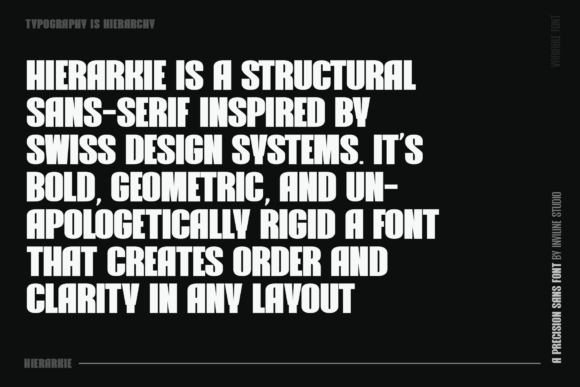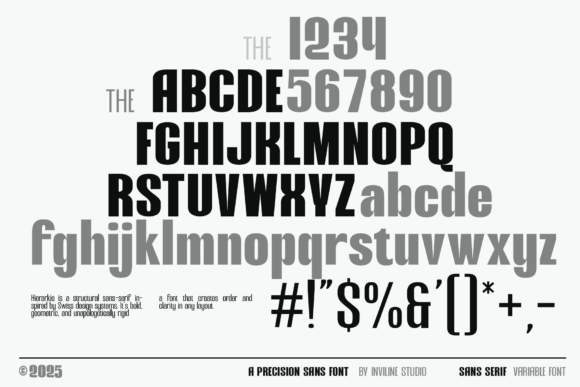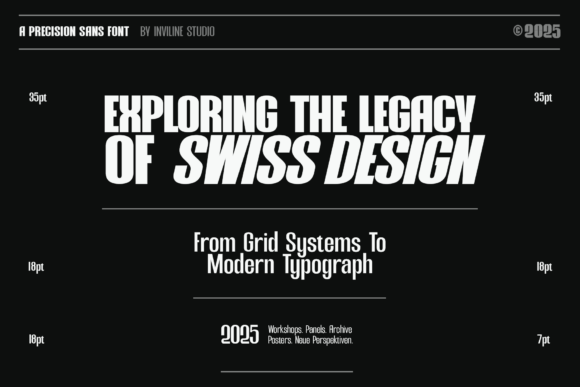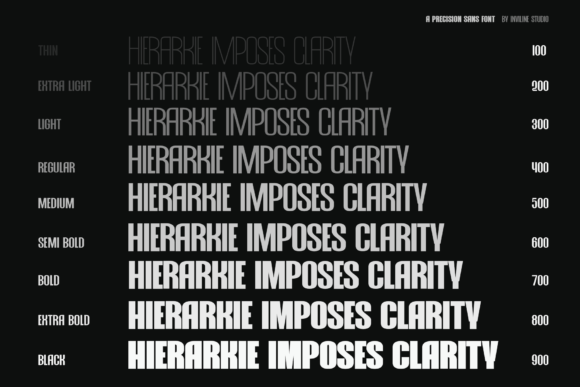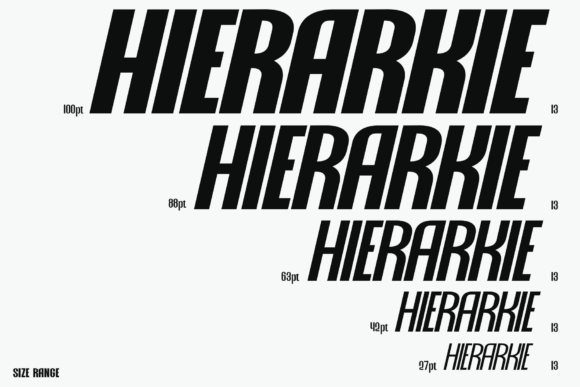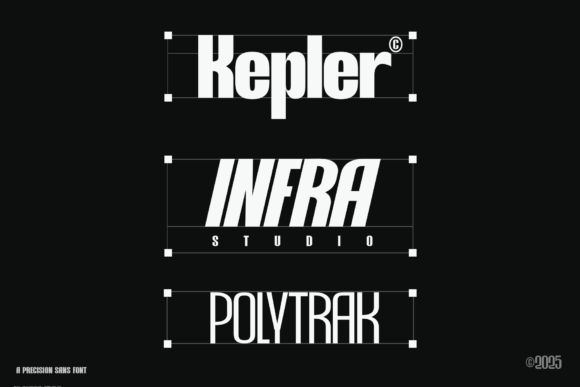
Introduction to Hierarkie Font
Enter the Hierarkie Font, a bold structural sans-serif font that’s built to impose clarity and order in every layout. With its rigid geometric construction and precision-focused rhythm, Hierarkie Font is the perfect choice for corporate branding, editorial systems, digital interfaces, and modern design workflows that demand both structure and strength. And the best part? It’s available for free download, making it an invaluable design resource for creatives of all levels.
Key Features of Hierarkie Font
- High-quality design with a modern aesthetic, ideal for creative projects.
Honest Review: Hierarkie Font
I recently stumbled upon the Hierarkie Font, and I must say it’s a fantastic design resource. The high-quality font is perfect for any creative project that requires a sleek and modern touch.
- ⚠️ Limited character set, which might not be ideal for projects requiring extensive typing
- ⚠️ Not ideal for small text sizes due to the font’s bold and condensed nature
Overall, I’m impressed with the Hierarkie Font’s potential for high-end design projects. While it may have some limitations, it’s a great free download for designers looking to add a touch of sophistication to their work.
Common Use Cases for Hierarkie Font
Hierarkie Font is suitable for a variety of creative projects, including presentations, brochures, and marketing materials. Its high-quality design and transparent background make it a valuable resource for designers and non-designers alike.